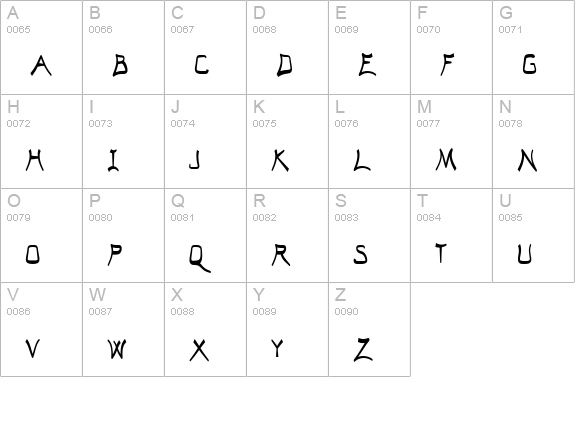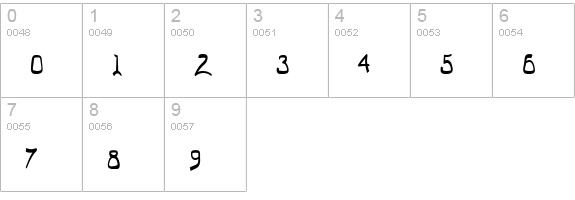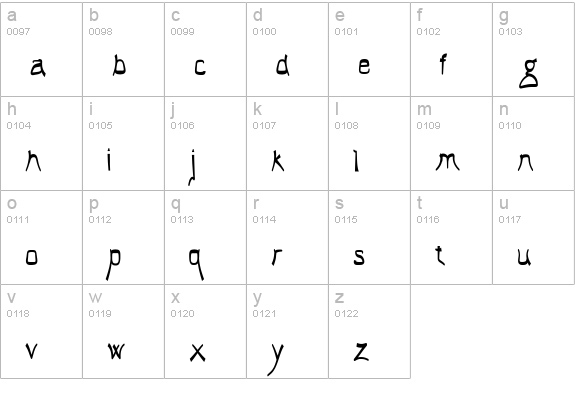
El Abogado Loco Font Details
El Abogado Loco is a playful and quirky font that is sure to add a touch of whimsy to any design project. With its unique and irregular letterforms, this font exudes a sense of fun and creativity. Perfect for invitations, posters, and branding materials, El Abogado Loco will make your text stand out in a delightful way. The best part is that El Abogado Loco is available for free download at FontsMarket.com. So go ahead and add a bit of craziness to your designs with this charming and free-spirited font!